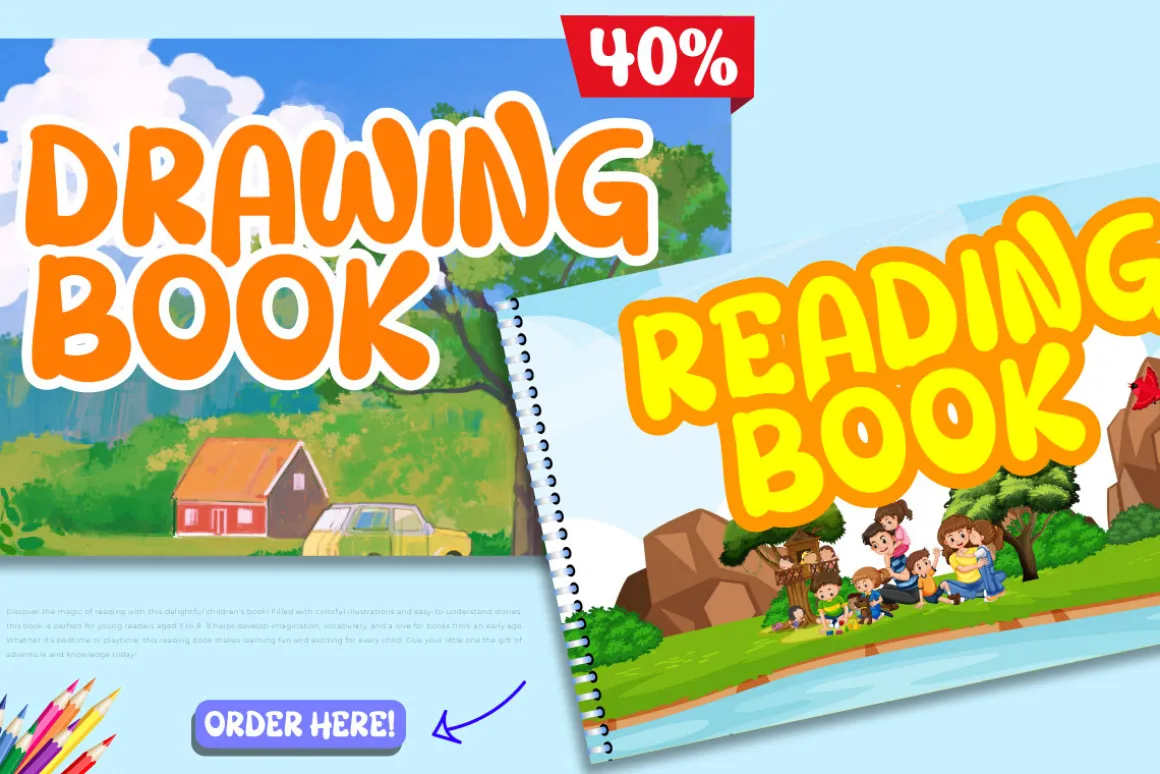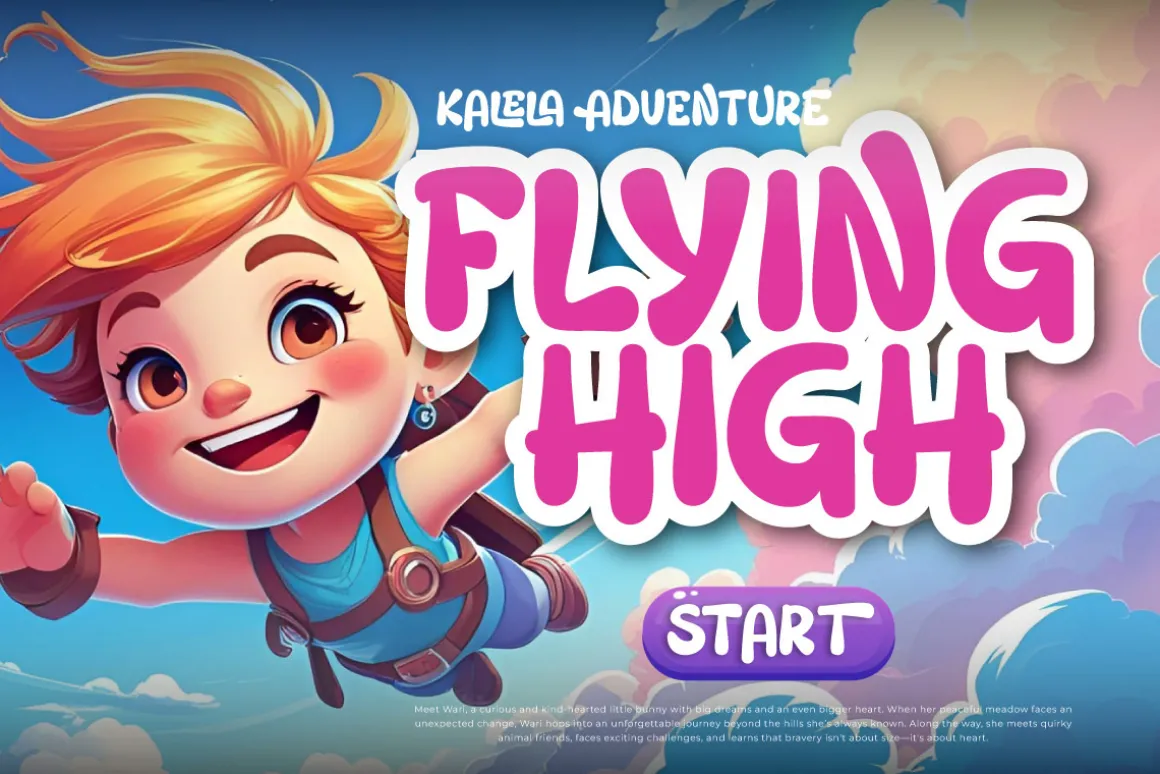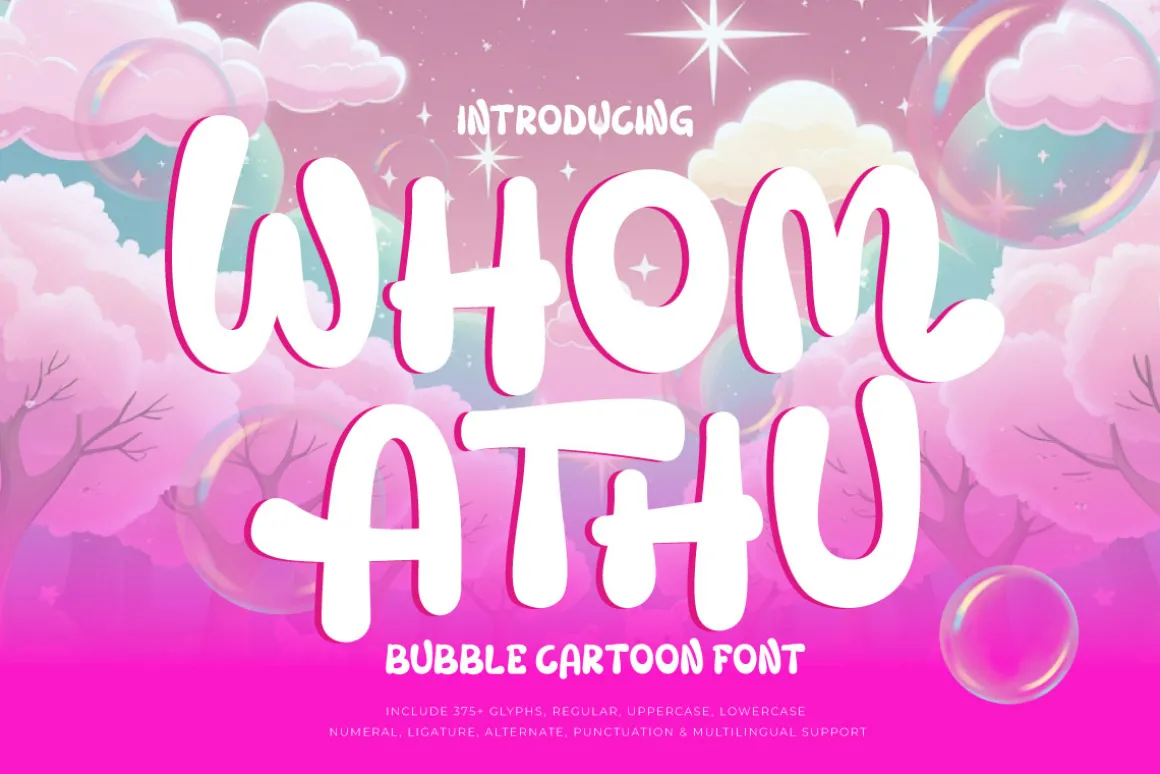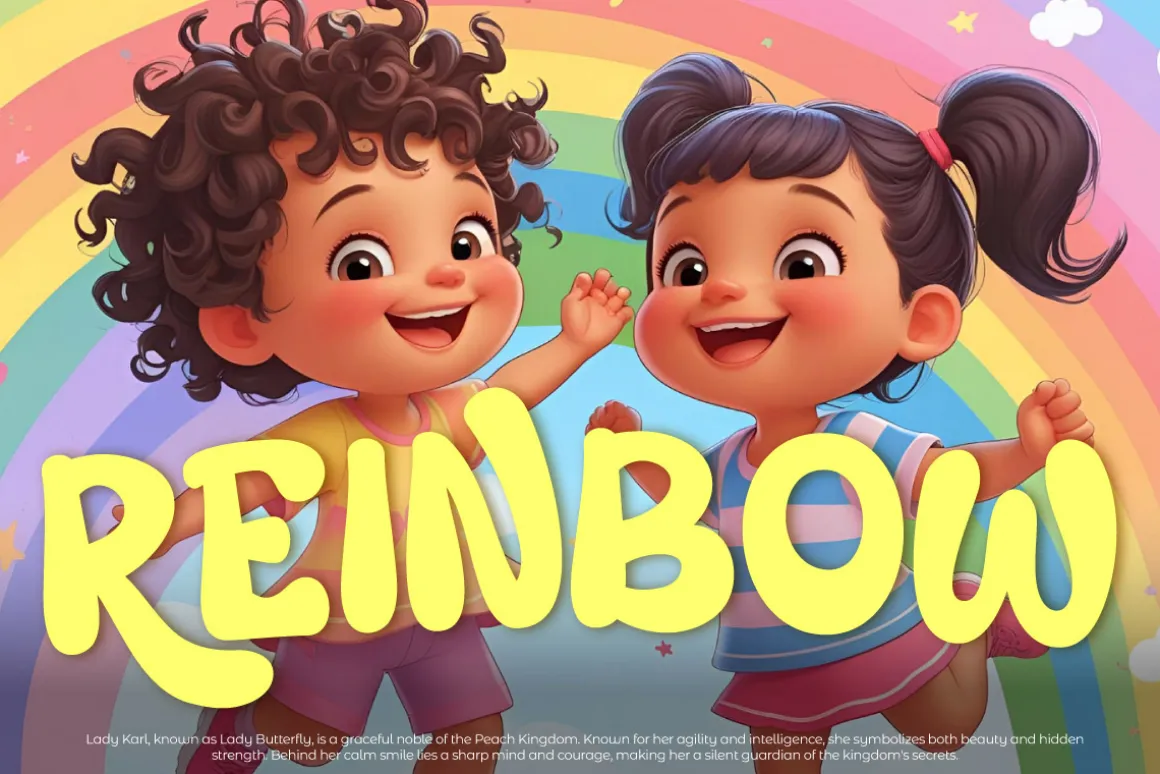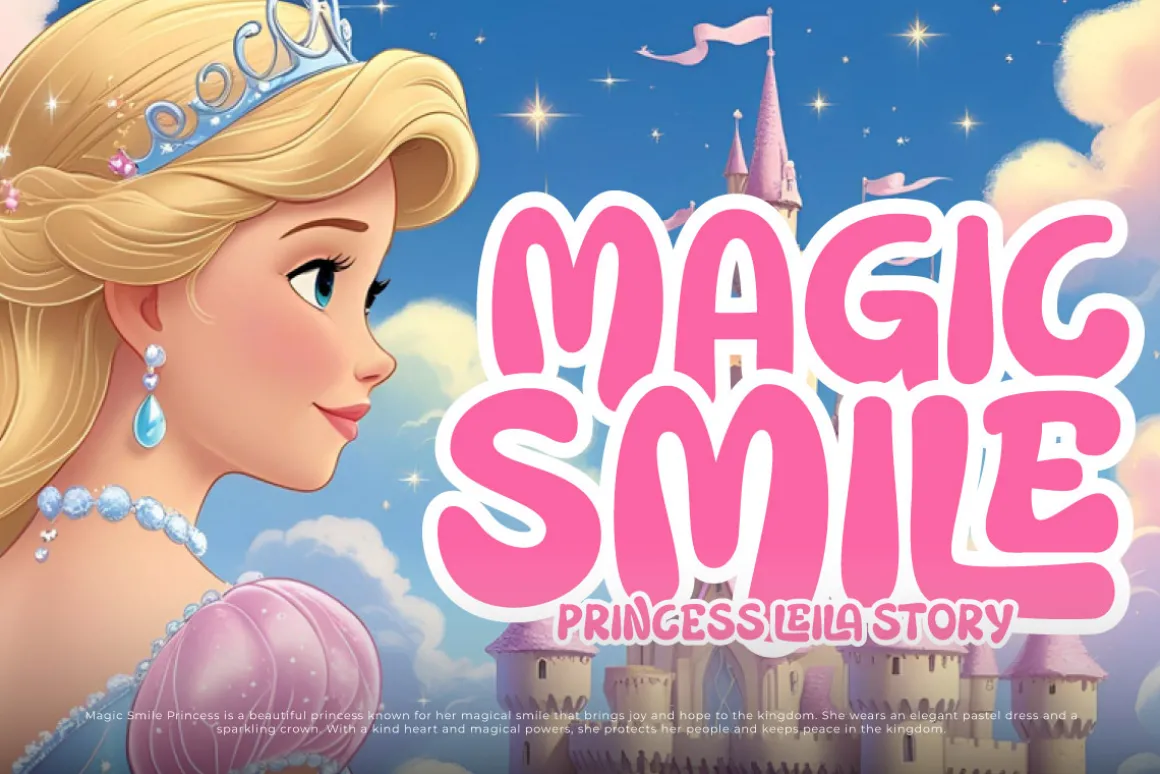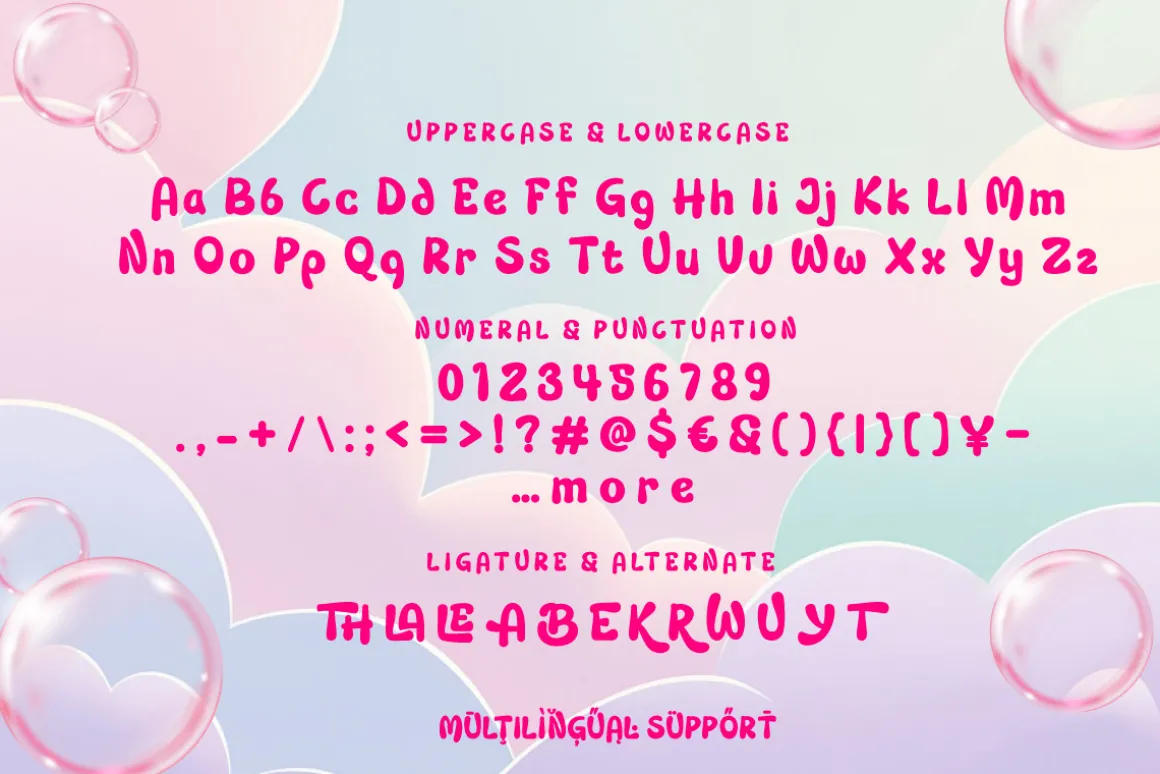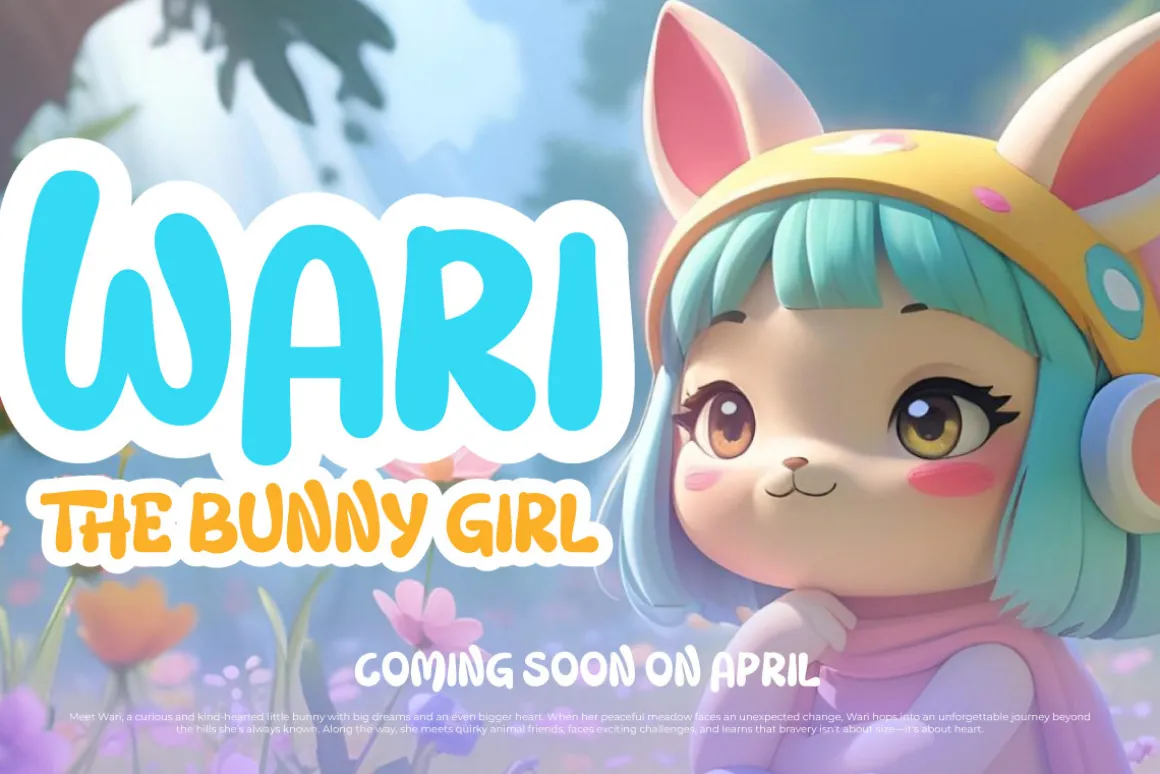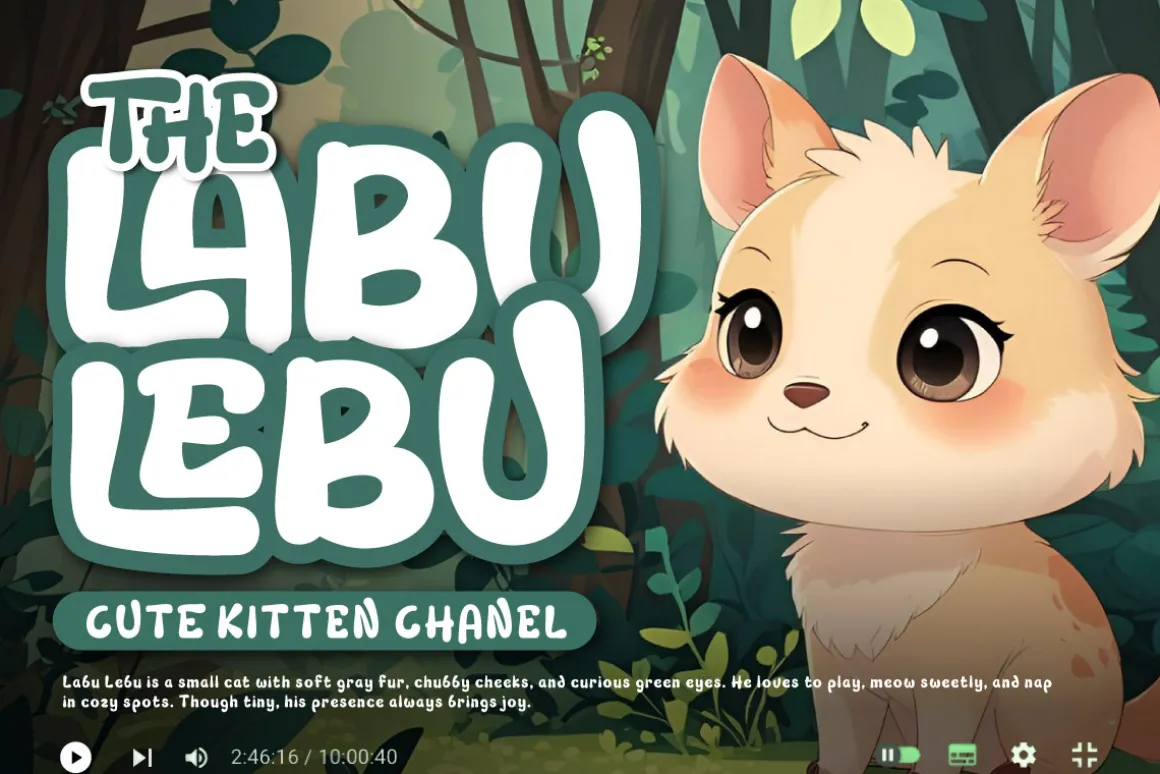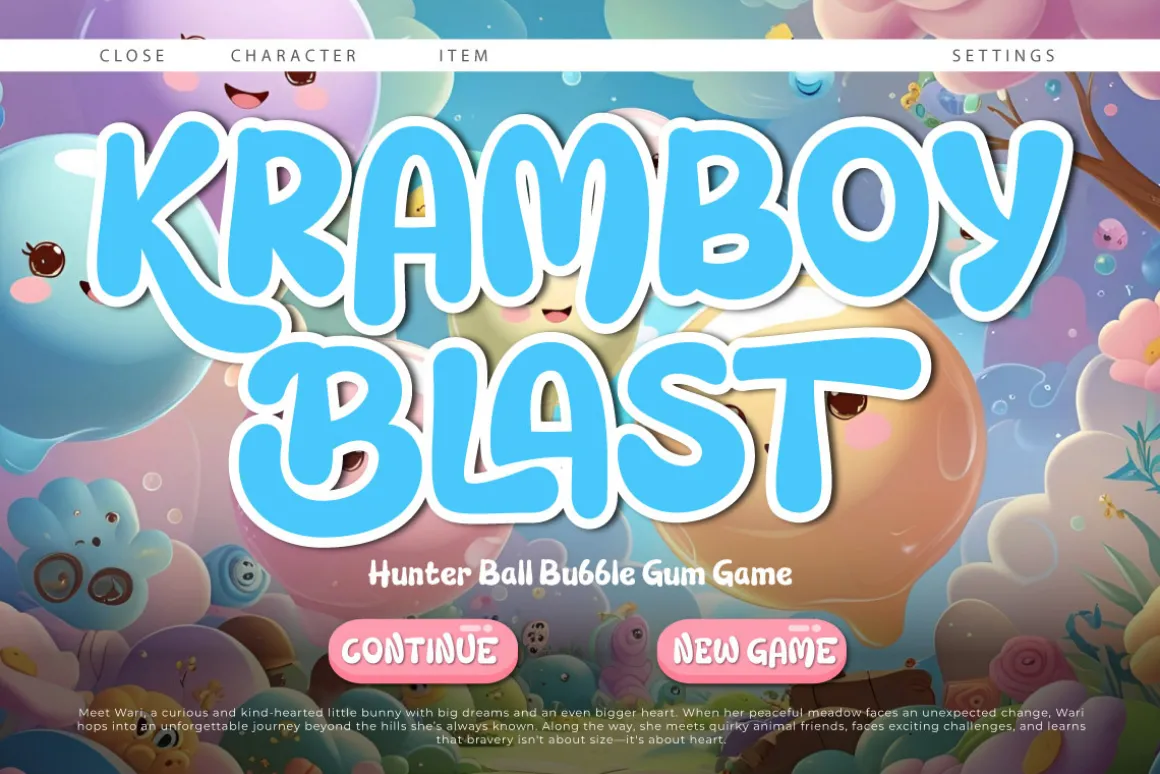
Step into a world of fun and imagination with Whom Athu, a bubbly cartoon display font that radiates joy and friendliness. Designed with soft, rounded edges and a playful bubble style, Whom Athu brings a cheerful, approachable vibe to every project. It’s perfect for children’s storybooks, comic titles, toy packaging, birthday invitations, and any design that needs a spark of youthful energy.
Whom Athu combines boldness and cuteness, making your text stand out while remaining easy to read. Whether you’re working on school materials, game titles, or social media graphics, this font instantly grabs attention and leaves a memorable impression. Let Whom Athu brighten your creative work with its unique, joyful character.